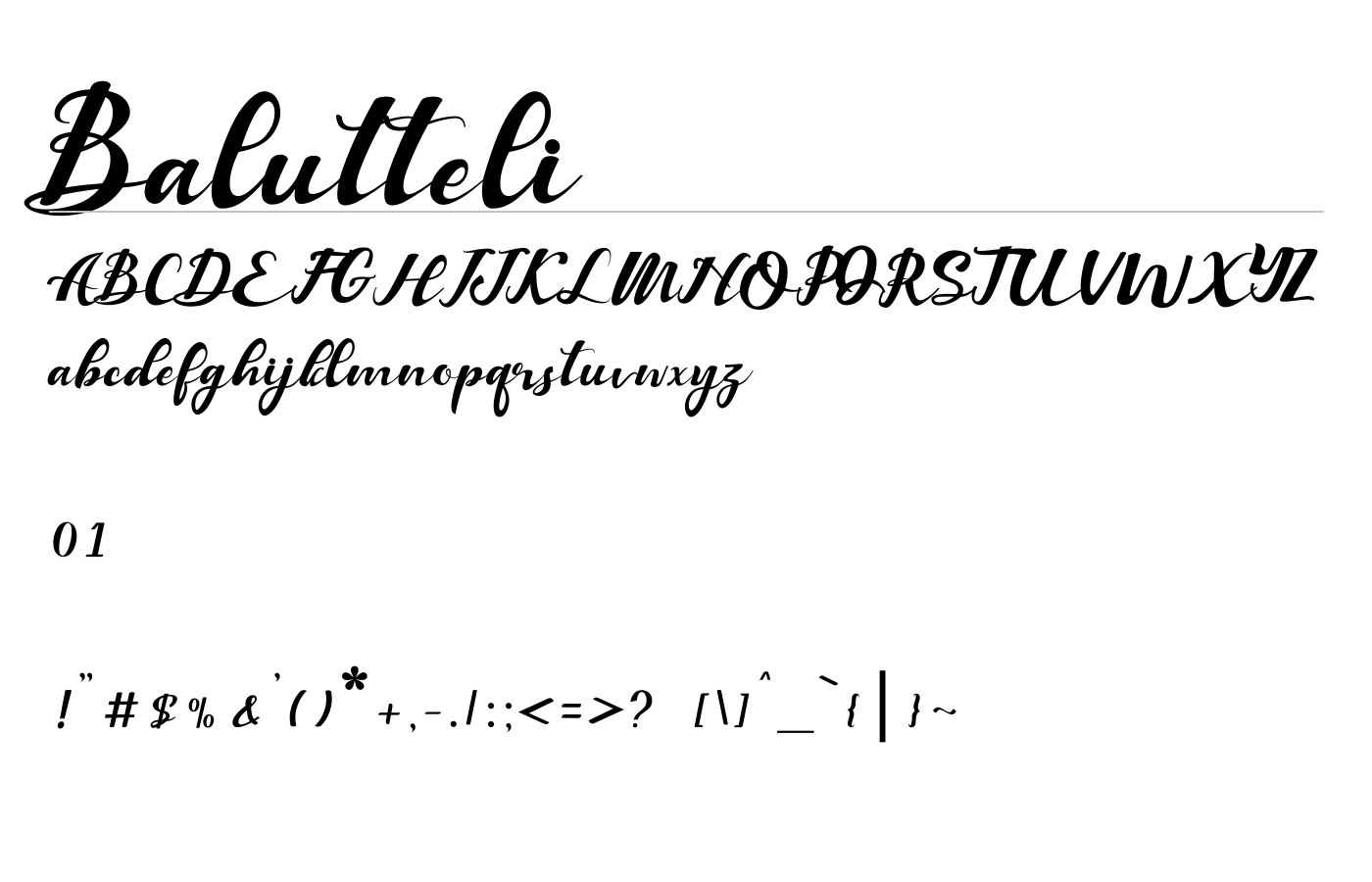
Balutteli is an elegant script font featuring smooth, flowing strokes and a balanced contrast that gives it a refined yet approachable personality. Its upright, slightly condensed letterforms with delicate curves make it ideal for stylish branding, invitations, and sophisticated headlines where a touch of classic charm is desired. This font works especially well for fashion, luxury, and creative projects looking to convey grace and warmth.
Balutteli Font
About Balutteli Font
| Font family | Balutteli Font |